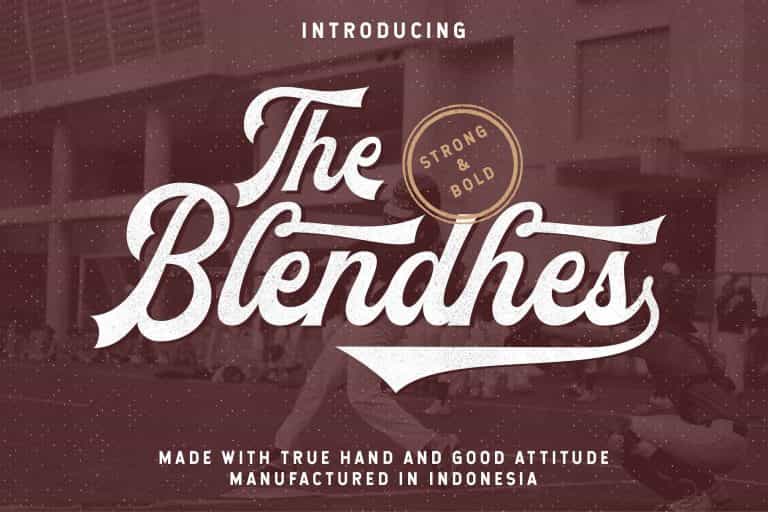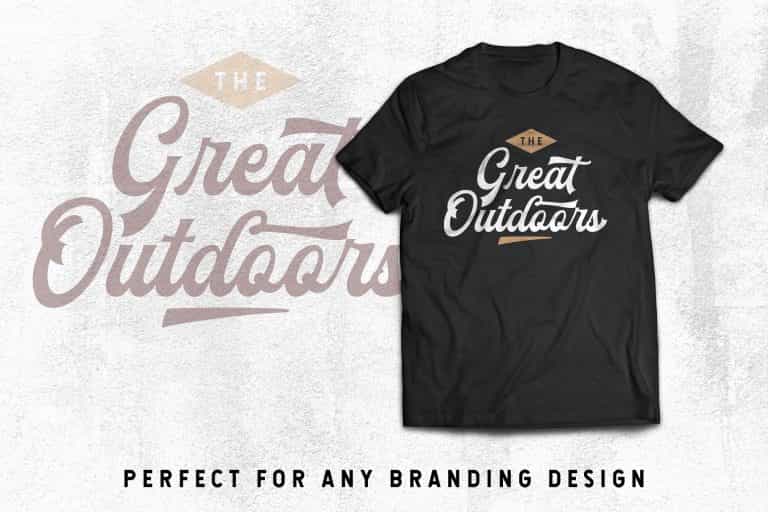
Discover The Blendhes Typeface, part of the Brush Retro collection—a versatile and unique font perfect for adding a personal touch to your projects. Download it for free and enjoy crafting designs with style, from invitations to social media posts. This font is available exclusively for personal use, giving you the freedom to create without limits. Unlock your creativity with The Blendhes Typeface today!
Introducing The Blendhes Font! The Blendh is a project that was designed and shared by YdhraStudio. The Blendhes is a powerful and bold script font which was created in the Vintage baseball sport design style. The Blendhes has a standard OpenType Features. The Blendhes allows you to do so many things with the OpenType Features, it is really a great font. Combine the different characters and create an appealing message for your design.